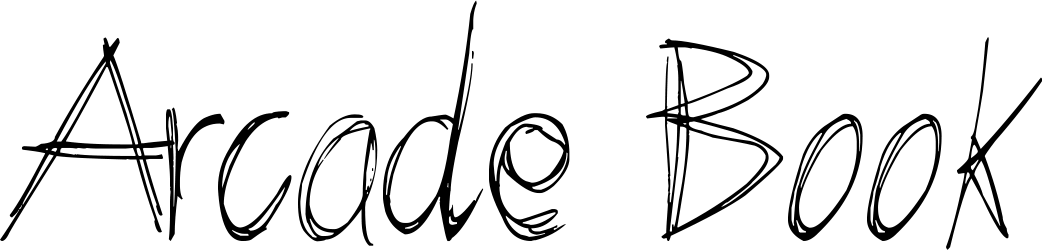
Arcade Book Font
The Arcade Book font resembles a memory of design from the ’90s. Drawn lines can be a starting point for various large posters, and flyer designs, and complete your projects in no time.
You can use this sketch font in the design of notebooks, scrapbooks, and cosmetic brands such as eyeliner and shadows. This hand-drawn font for children will also be an exciting gift to design their birthday cards.